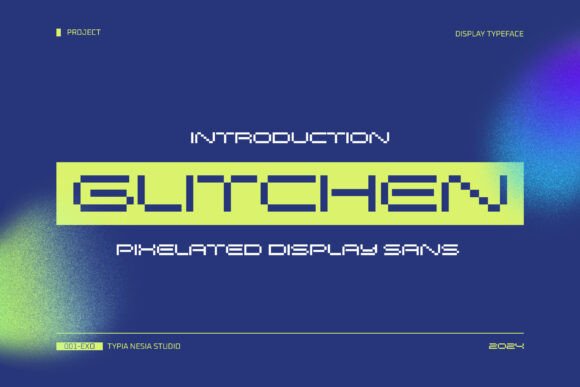
Introducing Glitchen Font: The Ultimate Pixelated Display Sans Font for Modern Designs
In the world of typography, fonts play a crucial role in conveying the tone and aesthetic of a brand or design. With the ever-evolving digital landscape, designers are constantly on the lookout for innovative and attention-grabbing fonts that can elevate their creations. This is where Glitchen Font comes in – a pixelated display sans font that seamlessly merges futuristic and pixelated design elements to create a cutting-edge look.
The Birth of Glitchen Font
Glitchen Font is the result of a meticulous design process that aimed to blend retro 8-bit aesthetics with a modern twist. The font’s creators sought to craft a typeface that would exude energy and movement, making it perfect for applications that require a dynamic and competitive atmosphere. By combining the nostalgia of pixelated design with the sleekness of modern typography, Glitchen Font was born.
Design Characteristics
Glitchen Font boasts a blocky, glitch-inspired design that is sure to turn heads. Its pixelated texture gives it a retro feel, while its sleek lines and curves ensure it remains modern and legible. The font’s design characteristics include:
- Pixelated texture with a retro 8-bit aesthetic
- Blocky, glitch-inspired design
- Sleek lines and curves for improved legibility
- Modern and futuristic feel
Perfect for Modern Designs
Glitchen Font is an incredibly versatile typeface that can be used in a wide range of applications. Its modern and futuristic design makes it an excellent choice for:
- Sports branding: Add a competitive edge to your sports brand with Glitchen Font’s energetic and dynamic design.
- Gaming interfaces: Create an immersive gaming experience with Glitchen Font’s pixelated and futuristic aesthetic.
- Digital interfaces: Elevate your digital products with a modern and sleek font that demands attention.
- Tech branding: Establish your tech brand as a leader in innovation with Glitchen Font’s cutting-edge design.
- Esports logos: Create a professional and competitive esports brand with Glitchen Font’s bold and futuristic design.
- Futuristic posters: Add a touch of modernity to your posters and flyers with Glitchen Font’s sleek and pixelated texture.
Why Choose Glitchen Font?
With so many fonts available, why choose Glitchen Font? Here are just a few reasons why Glitchen Font stands out from the crowd:
- Unique design: Glitchen Font’s blend of retro and modern elements creates a truly unique and attention-grabbing design.
- Versatility: Use Glitchen Font in a wide range of applications, from sports branding to digital interfaces.
- Legibility: Despite its pixelated texture, Glitchen Font remains highly legible, even at small sizes.
- Modern aesthetic: Glitchen Font’s sleek lines and curves ensure it looks modern and fresh, even in a rapidly evolving design landscape.
Tips for Using Glitchen Font
To get the most out of Glitchen Font, here are some tips for using it effectively:
- Experiment with sizes: Glitchen Font looks great at both large and small sizes, so don’t be afraid to experiment with different sizes to find the perfect fit.
- Pair with complementary fonts: Glitchen Font pairs well with clean and modern fonts, so try pairing it with a sans-serif font for a striking contrast.
- Use bold and bright colors: Glitchen Font’s pixelated texture looks great with bold and bright colors, so don’t be afraid to get creative with your color palette.